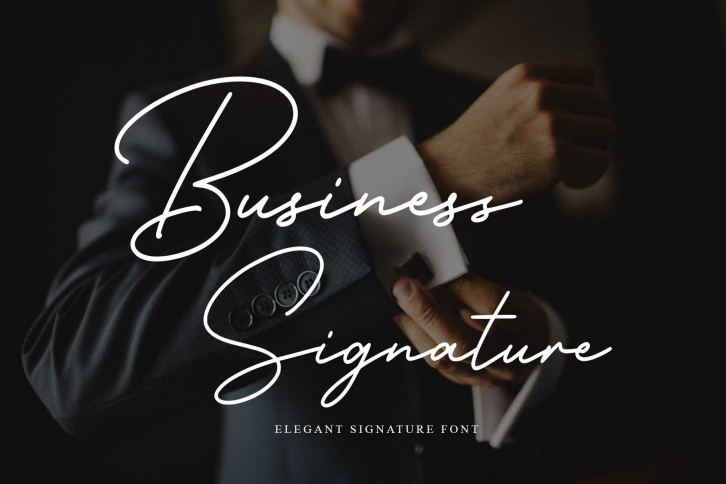
Business Signature is a beautiful font that was designed by Nirmana Visual. It's a great choice for designers and creatives who need such a font. It was released on April 26, 2021 and the file size is 7.98 MB. Business Signature may give a more youthful, expressive and casual look to your project. It is a very beautiful, refined, elegant, and high-quality font.